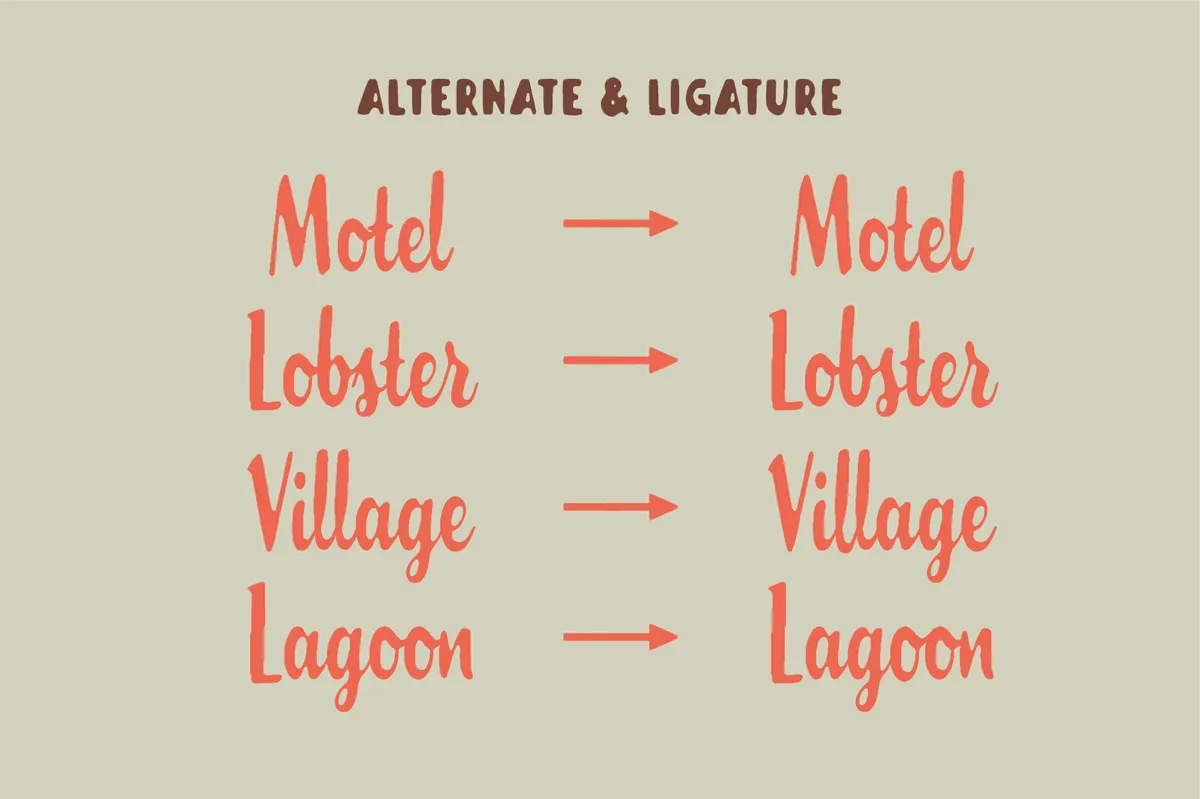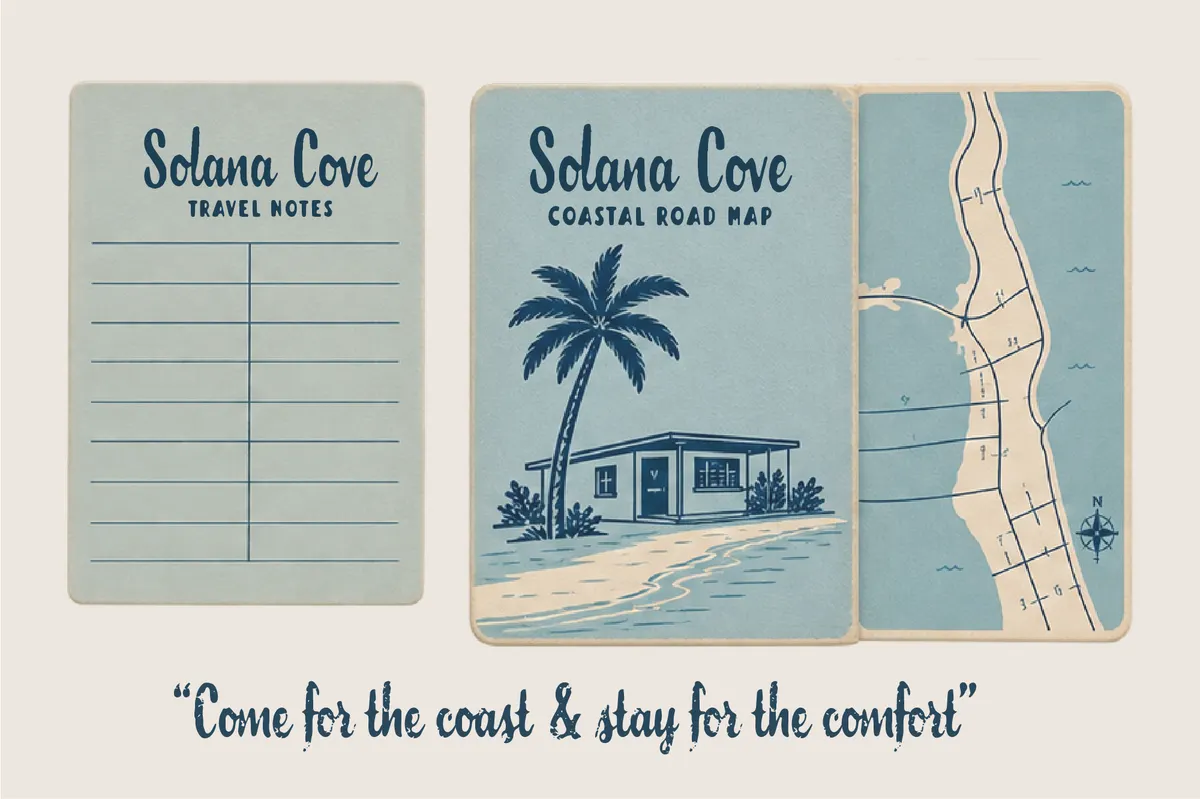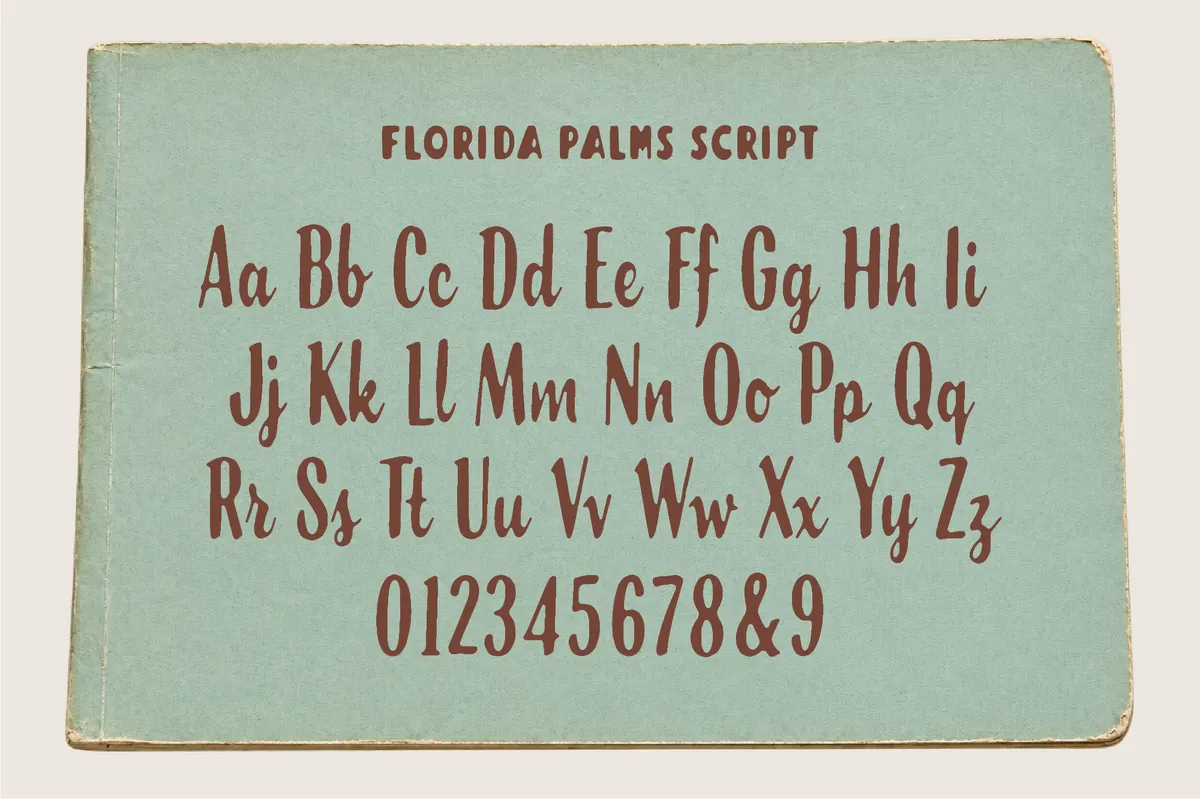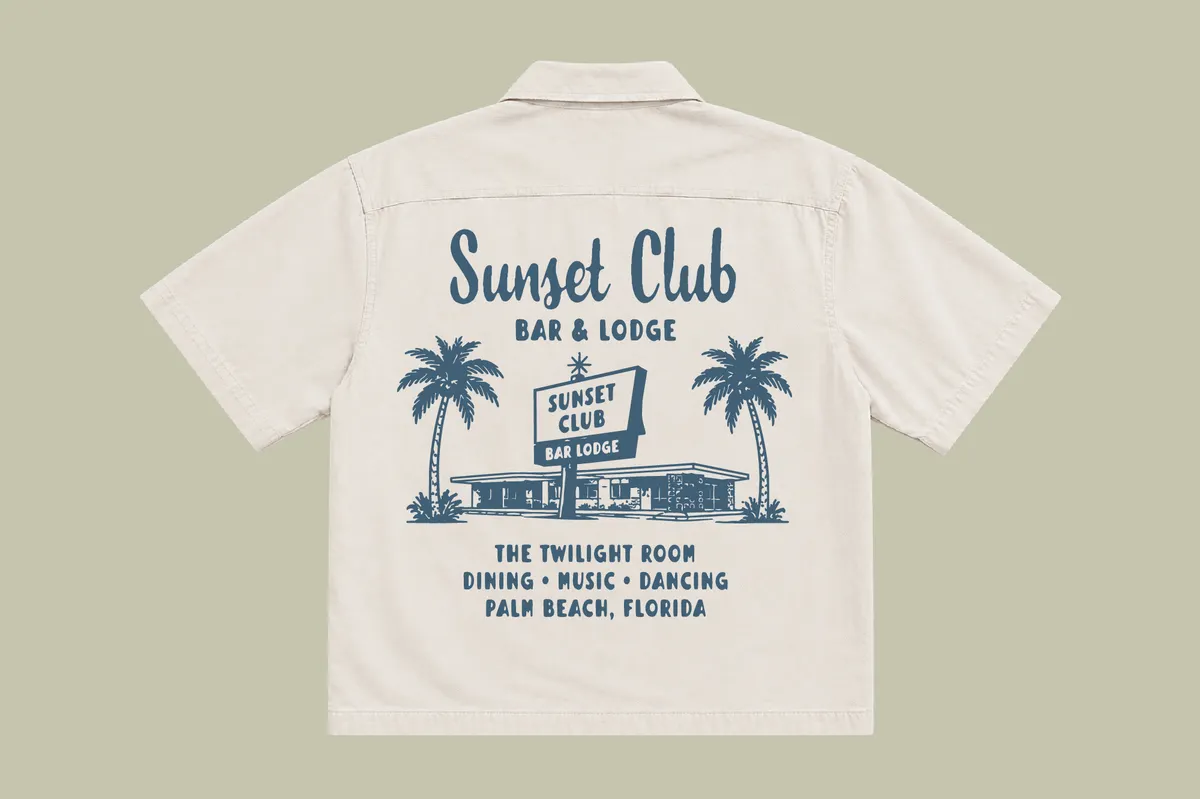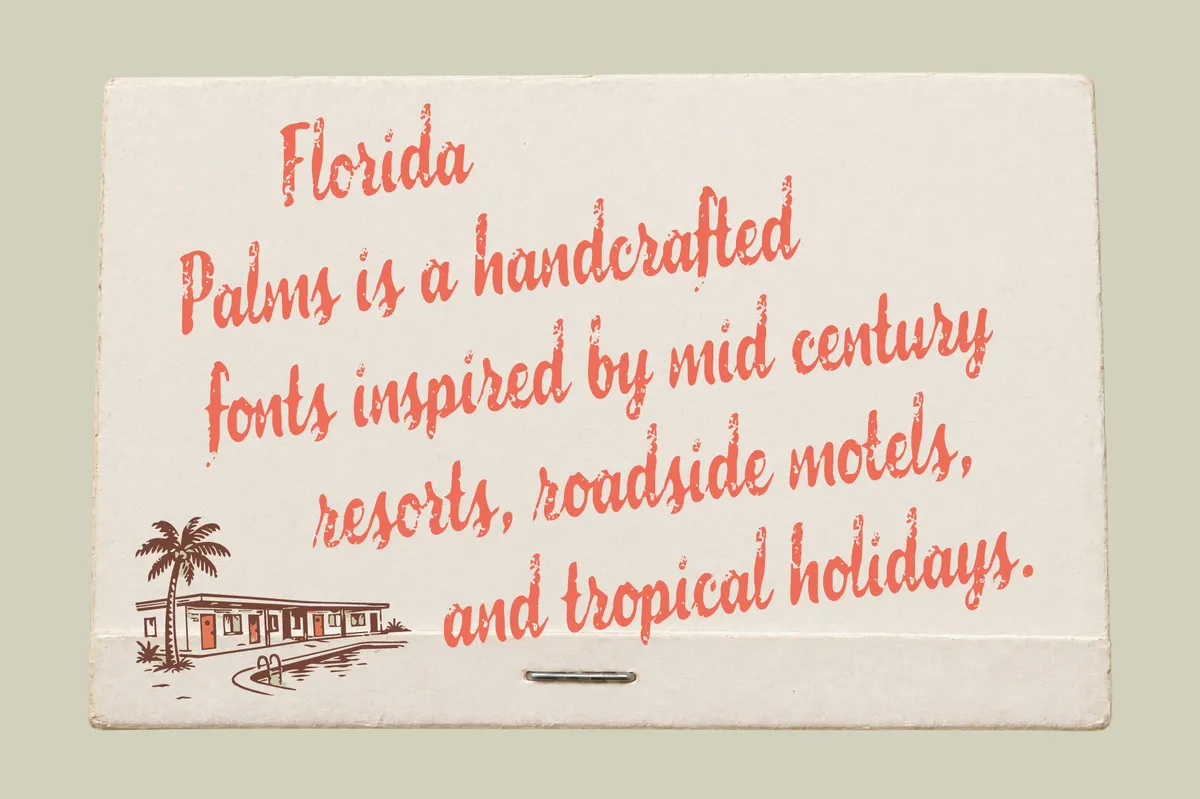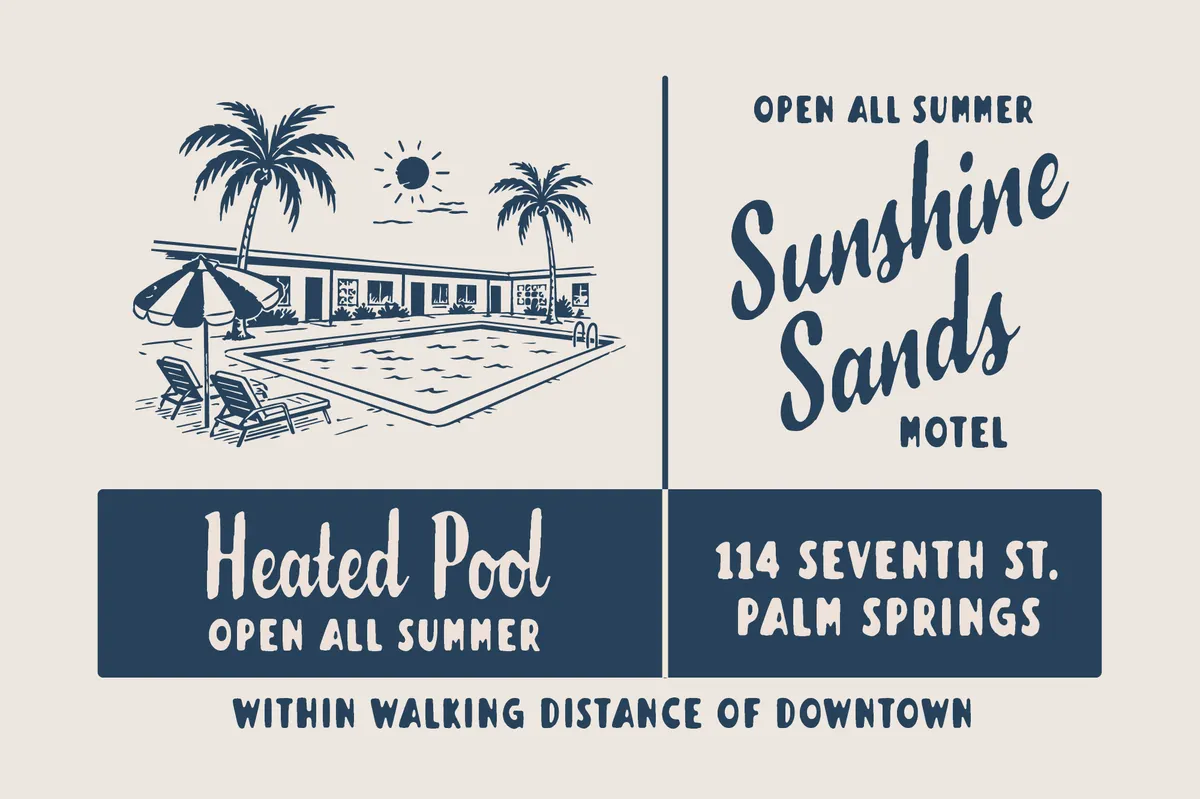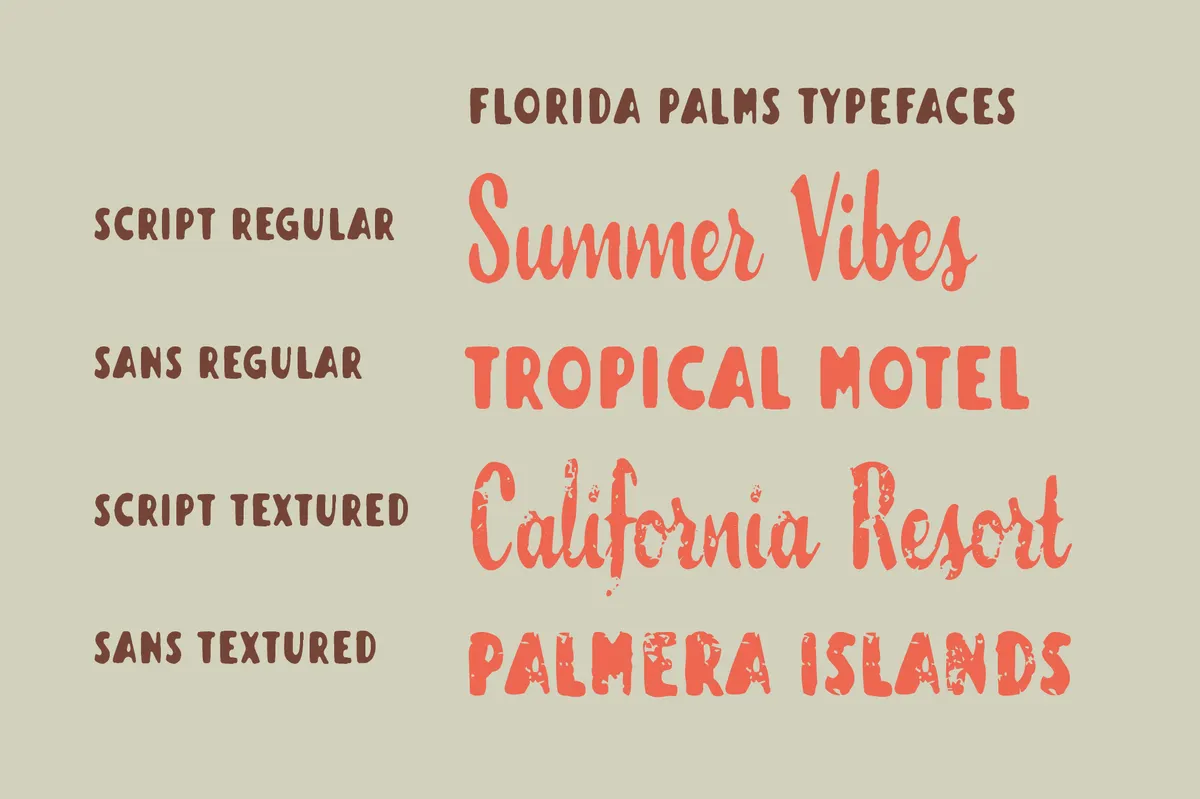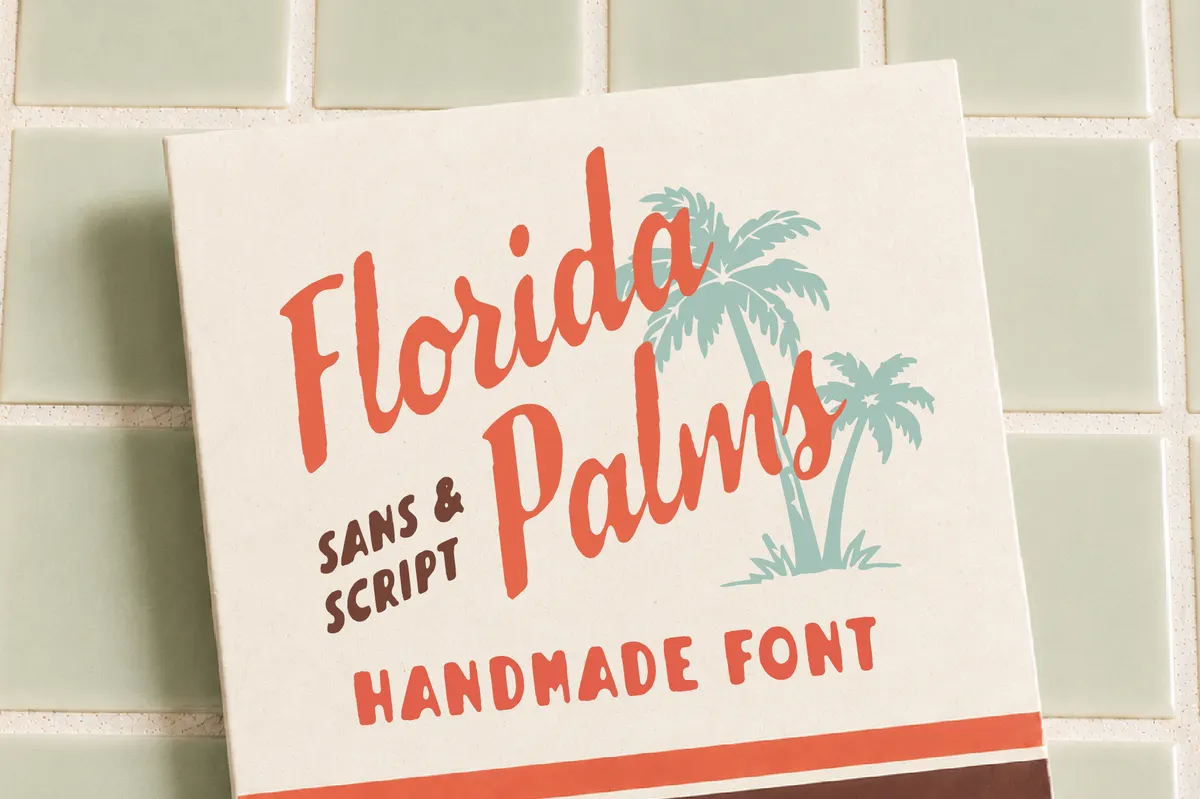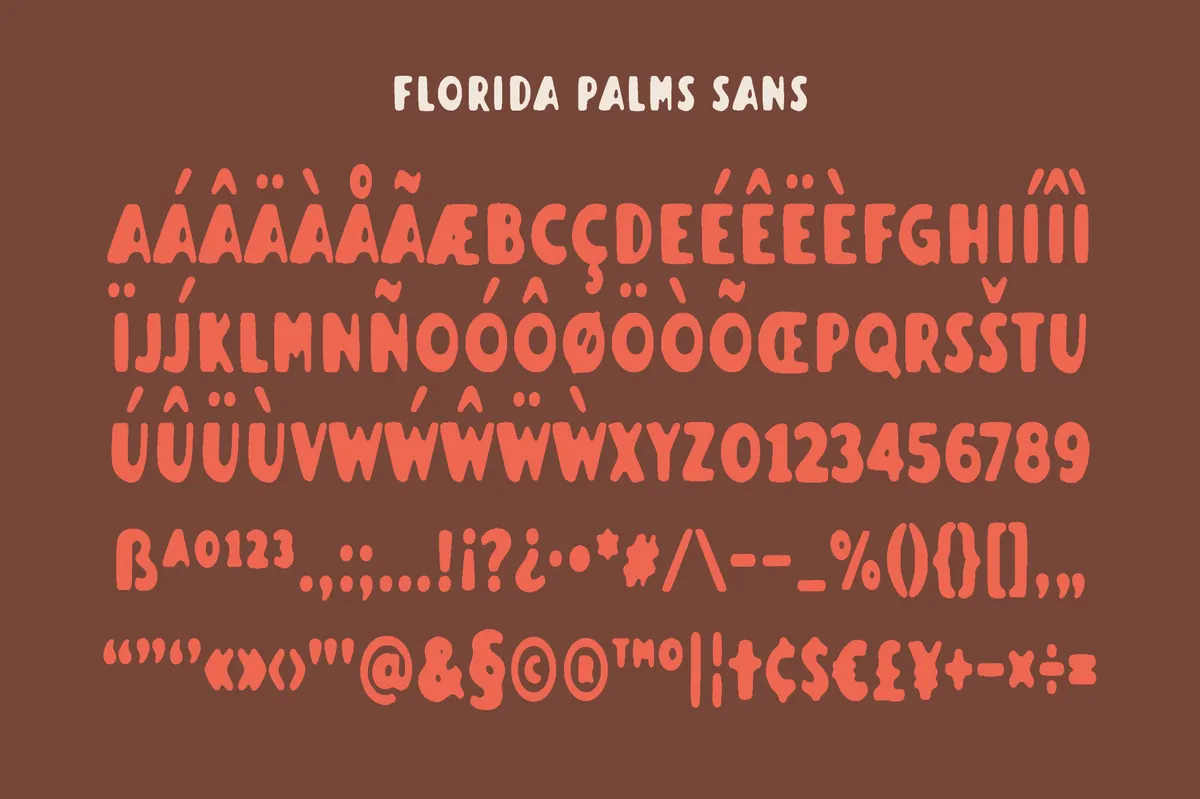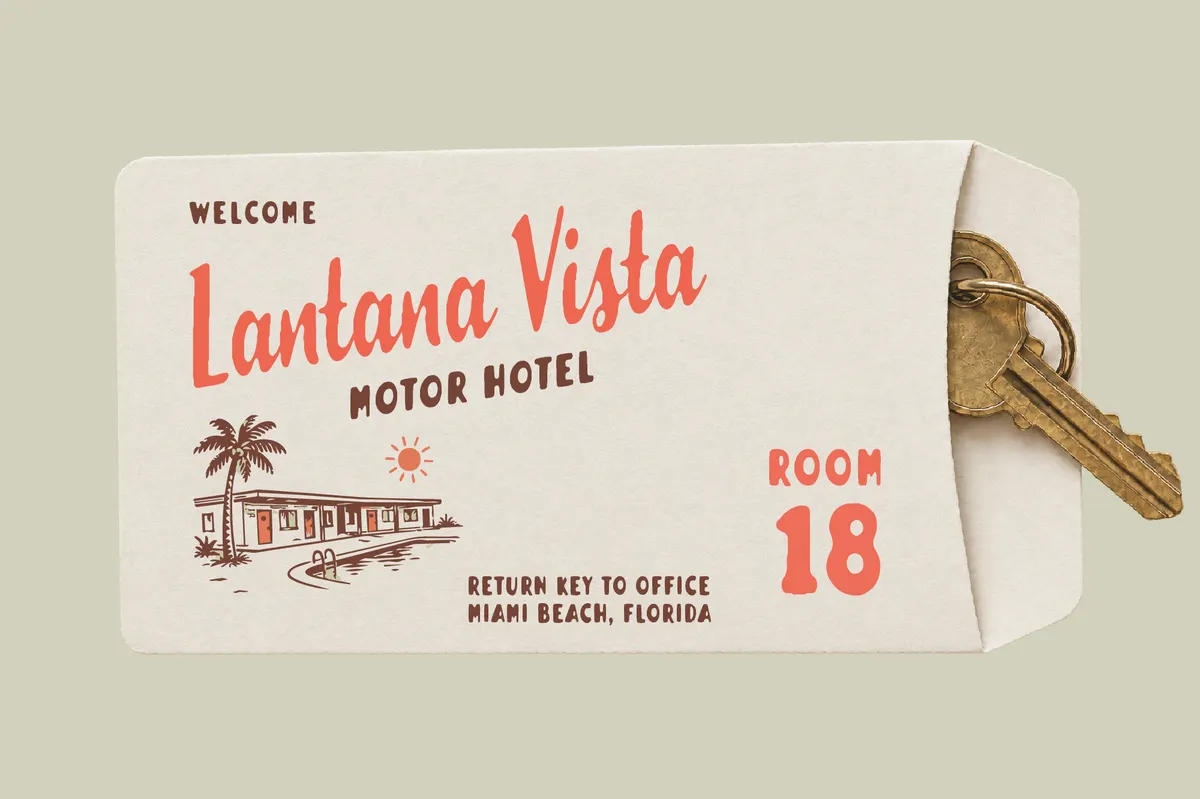
Florida Palms – Tropical Font Duo
Florida Palms pushes mid-century resort lettering into a two-part system, pairing a hand-painted script with a bold all-caps sans built to sit side by side. Twelve discretionary ligatures connect script pairs like ll, oo, and or into single flowing strokes, and seven stylistic alternates swap in looser forms for b, h, m, n, o, r, and s, all reachable through the OpenType panel. Regular styles keep a clean line, and Textured versions add a light, screen-printed wear to both faces.
Use it for hotel and resort branding, motel identities, tropical logos, summer campaigns, apparel, packaging, restaurant menus, invitations, and signage.
- Uppercase & lowercase in Script; all-caps in Sans;
- Numerals, punctuation & symbols;
- 12 discretionary ligatures and 7 stylistic alternates in Script;
- 2 styles per typeface: Regular and Textured;